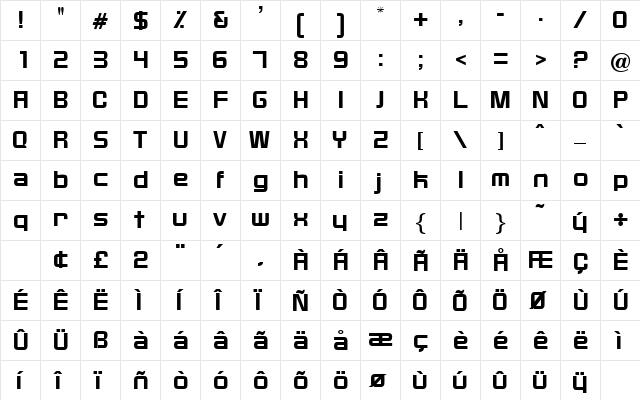
Bixby DB Regular
Design Context for Bixby DB Typeface
Bixby DB is a composed and adaptable typeface that performs quietly and consistently across a wide range of design contexts.